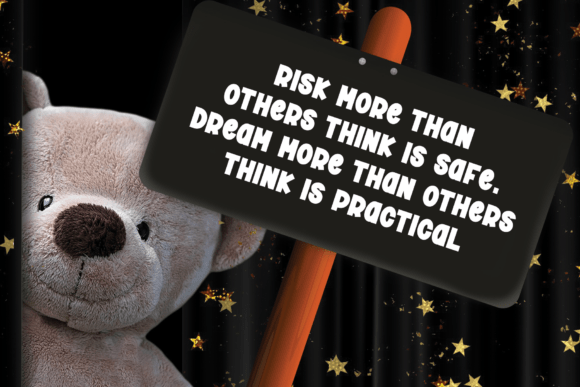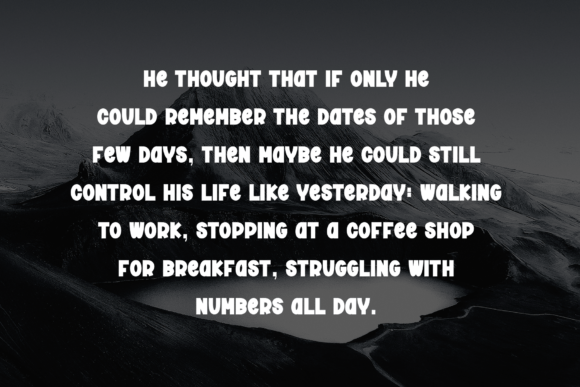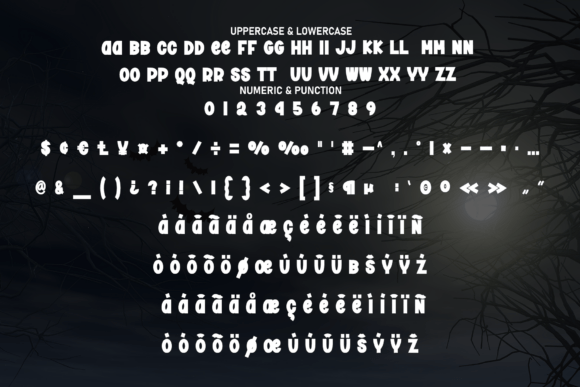
One such font that has captured the hearts of designers is the Grinch Haunted Font, a casual and neat display font that exudes simplicity and friendliness. Its clean lines, balanced letterforms, and subtle rounded edges make it an ideal choice for branding, headlines, packaging, and digital content. With its polished finish, this font adds a warm and inviting touch to any design, making it a valuable asset for designers looking to deliver clarity and charm in equal measure.
Grinch Haunted Font Key Features
- Font Family: Grinch Haunted is a unique, hand-drawn font family with a spooky and whimsical feel.
- Unique Characteristics: Grinch Haunted features a distinctive, hand-drawn design with irregular shapes, making it perfect for adding a touch of whimsy and personality to designs.
Grinch Haunted Font Review
As a designer, I was excited to dive into the Grinch Haunted Font and see what it had to offer. Here’s my honest review:
- The font’s eerie and spooky vibe is perfect for Halloween-themed designs or any project that needs a touch of grumpiness.
- The font is highly customizable, with various font styles and weights to choose from.
- The font is well-suited for use in titles, headings, and short text blocks, adding a unique touch to your design.
- The font may be too over-the-top for some designs, making it difficult to use in more serious or professional projects.
- The font’s unique style may not be suitable for long blocks of text, as it can become overwhelming and difficult to read.
Overall, I think the Grinch Haunted Font is a fun and unique addition to any designer’s toolkit. While it may have some limitations, it’s perfect for adding a touch of whimsy and personality to your designs. Just be sure to use it in moderation and choose the right projects for it.
Grinch Haunted Font is perfect for creating spooky or Halloween-themed designs. Use it for invitations, posters, or social media graphics. To get the most out of it, pair it with bold and bright colors to create a striking contrast.